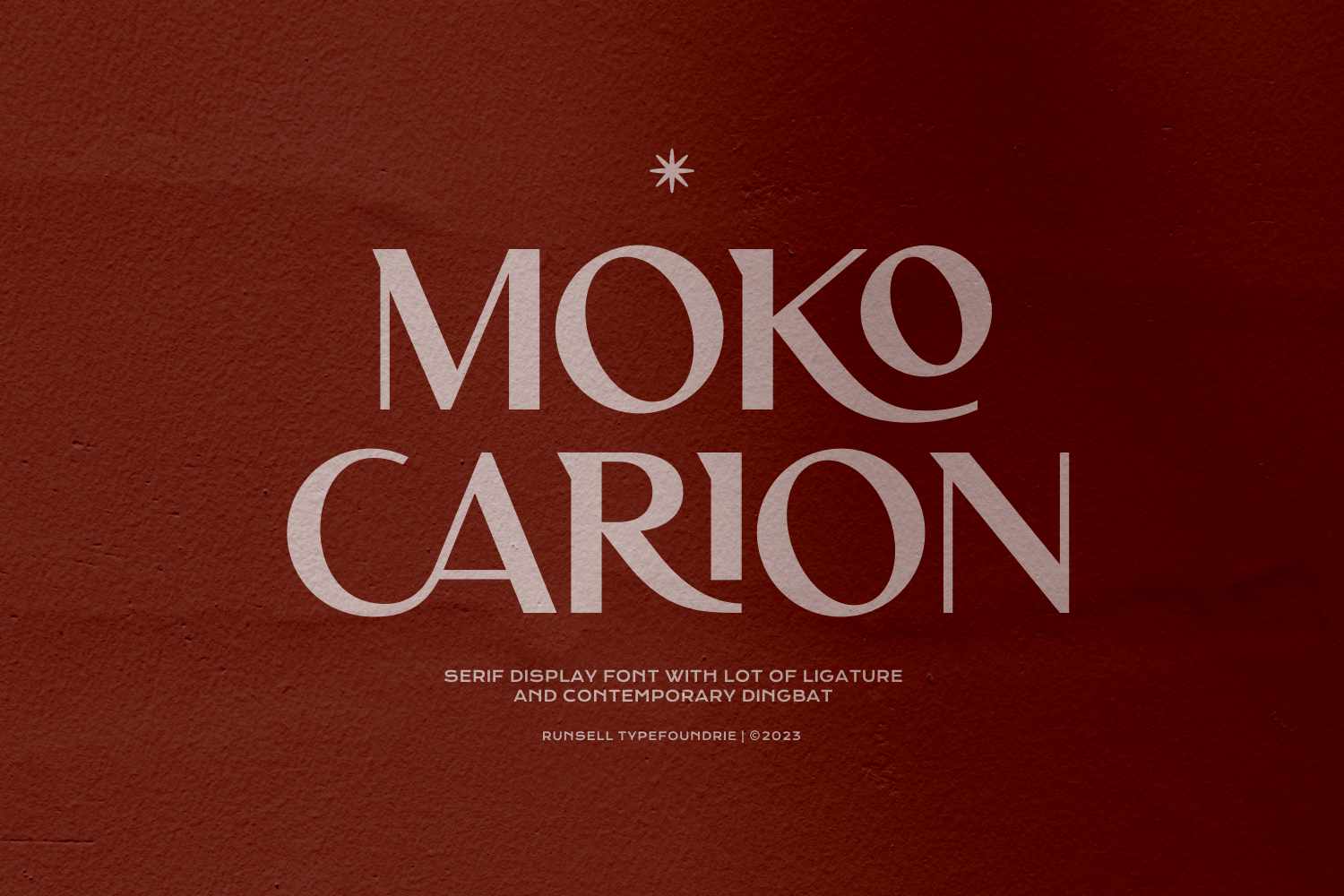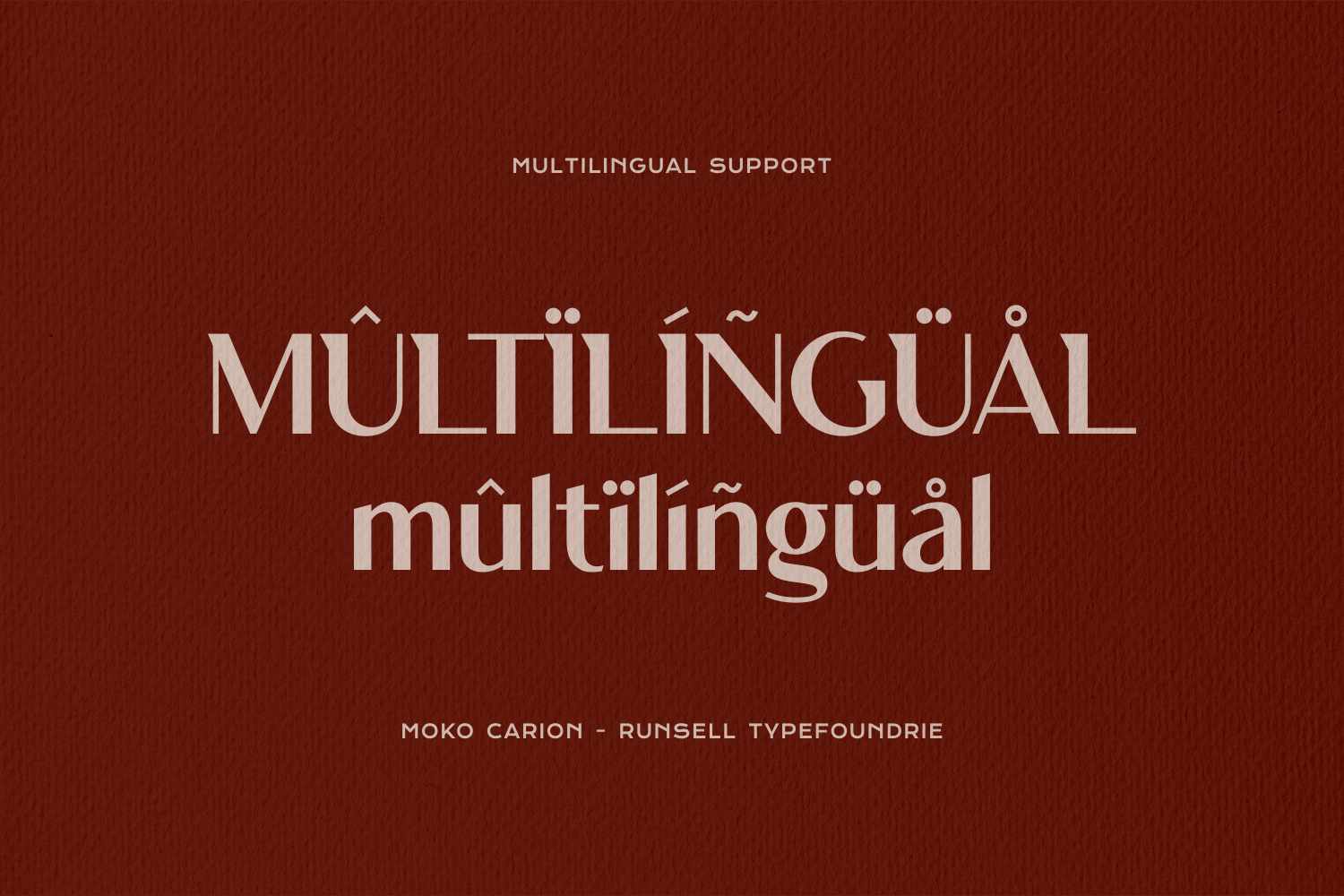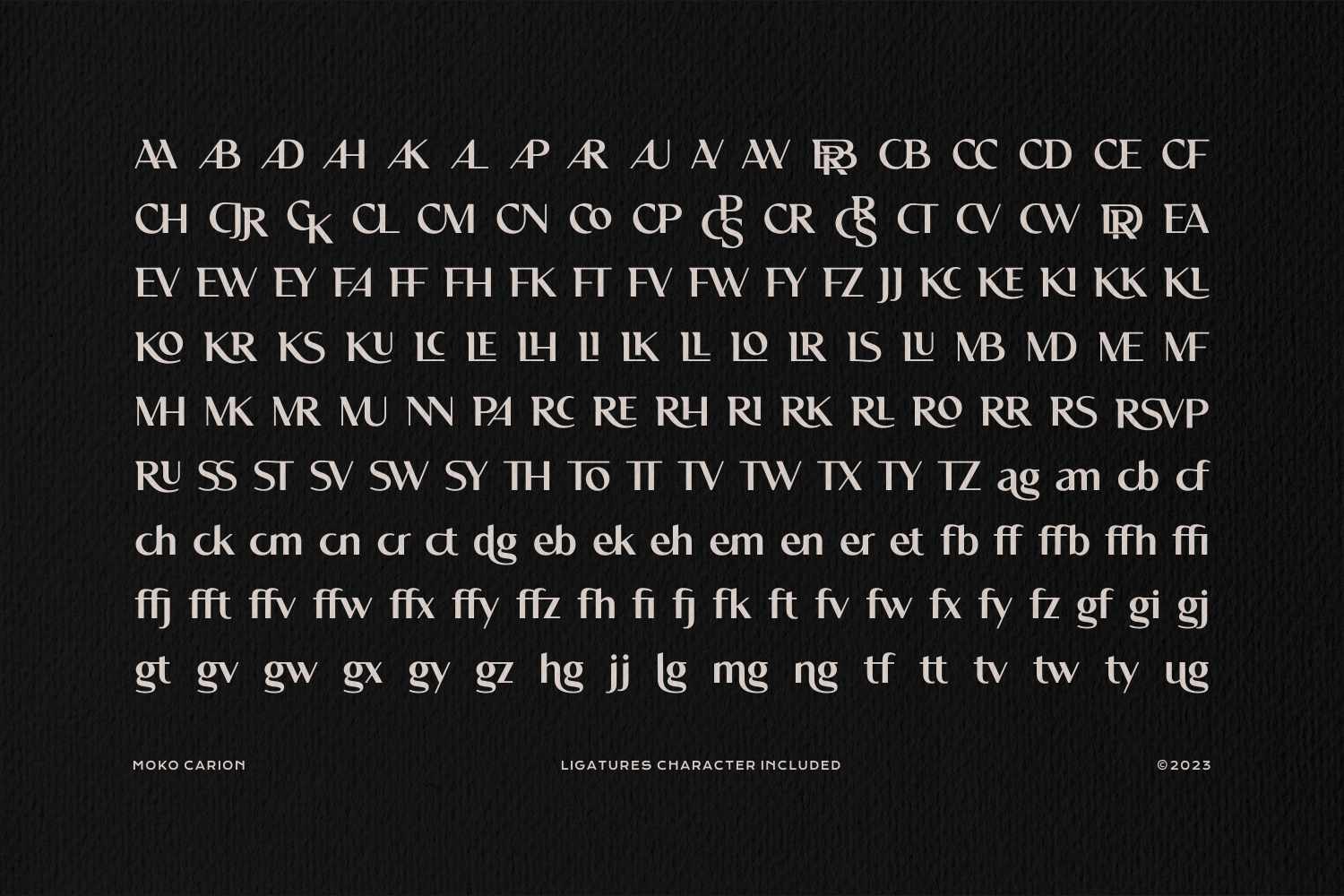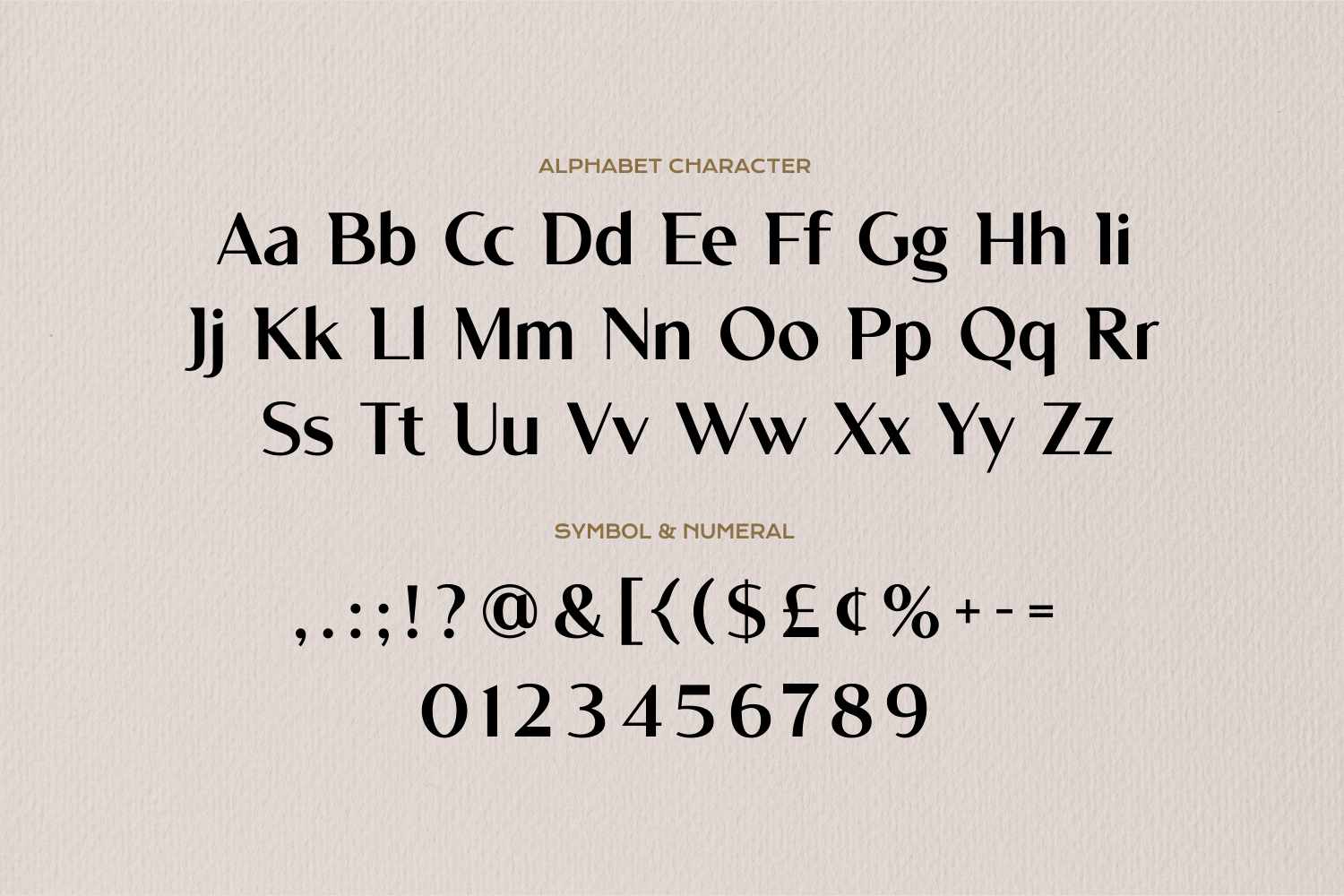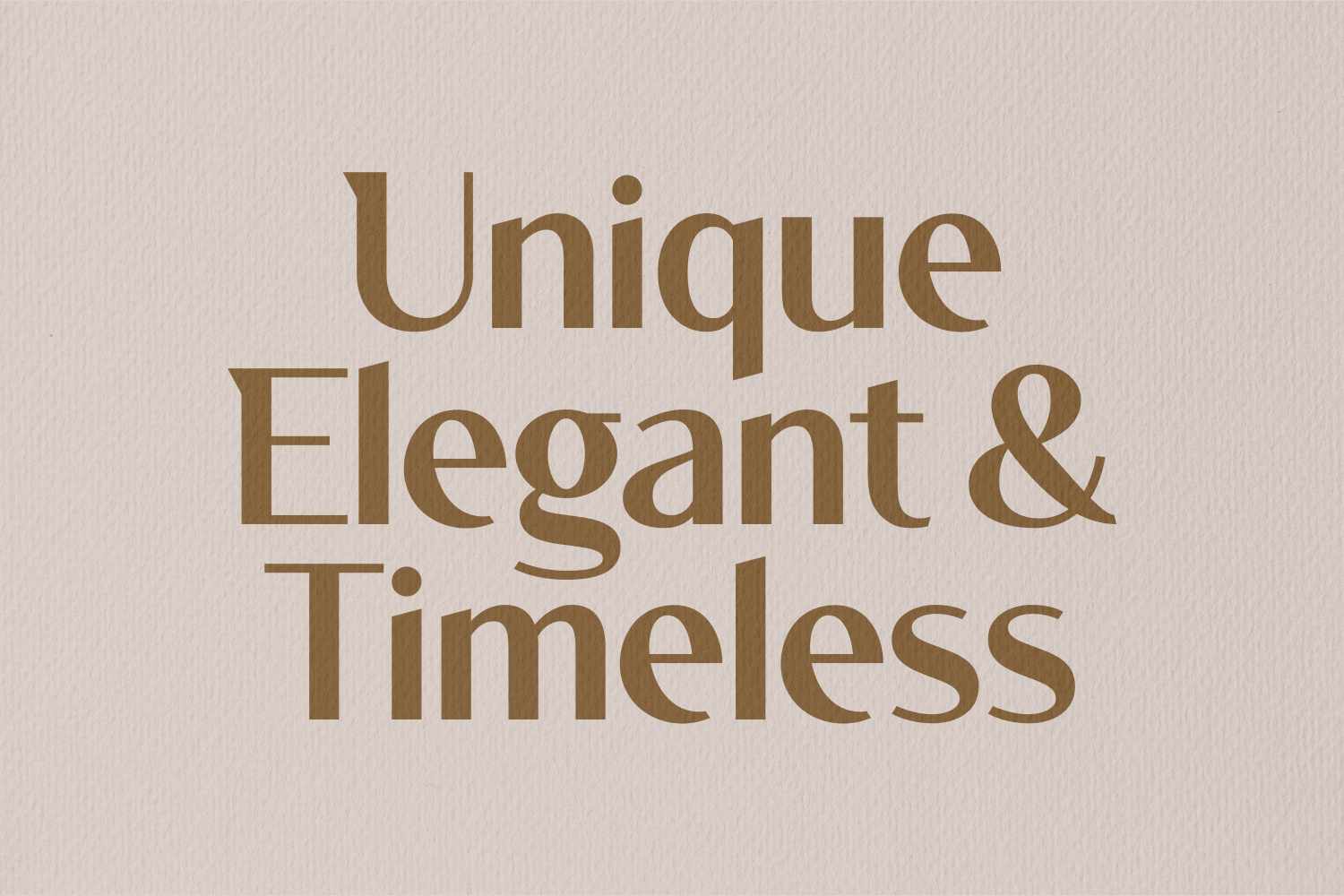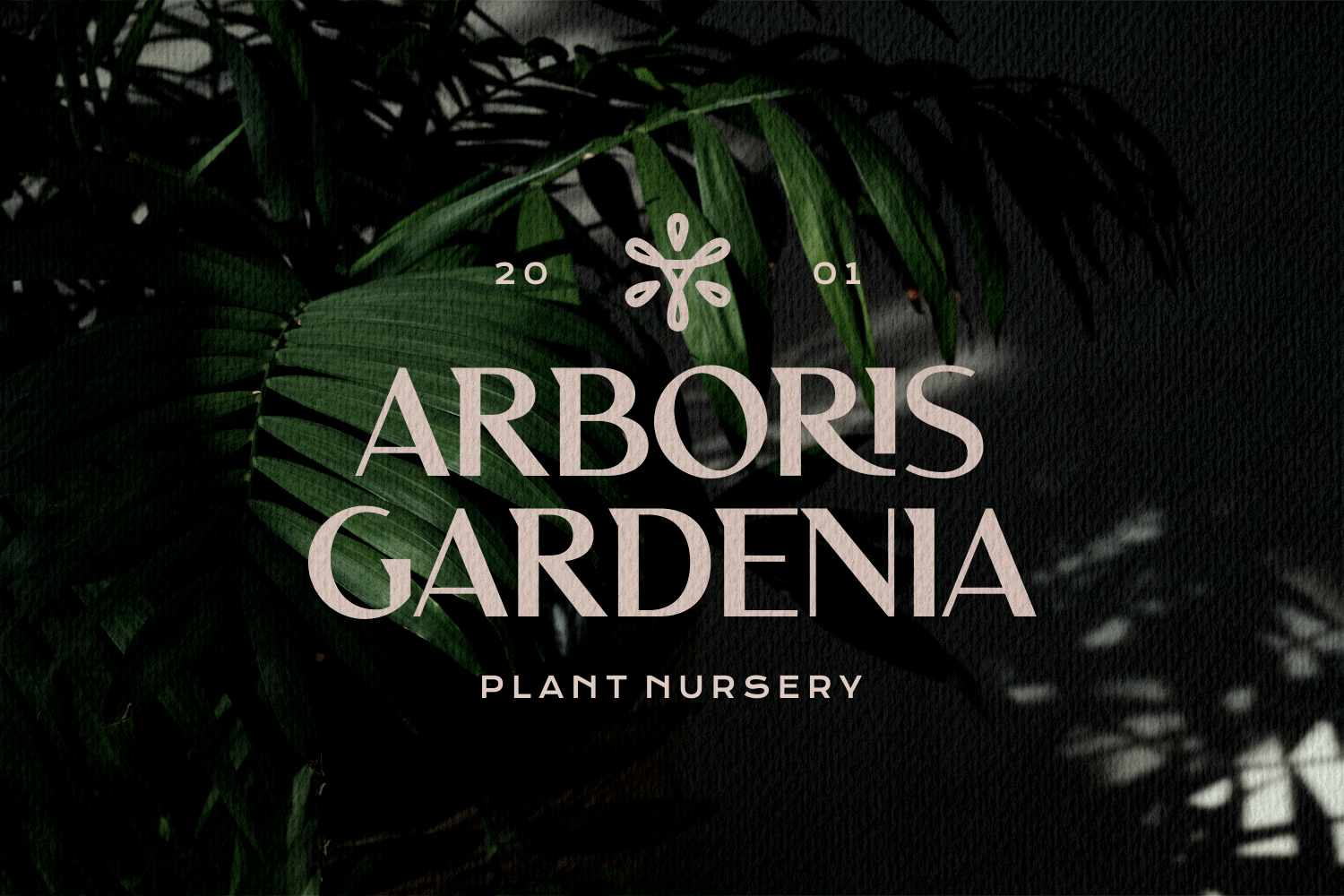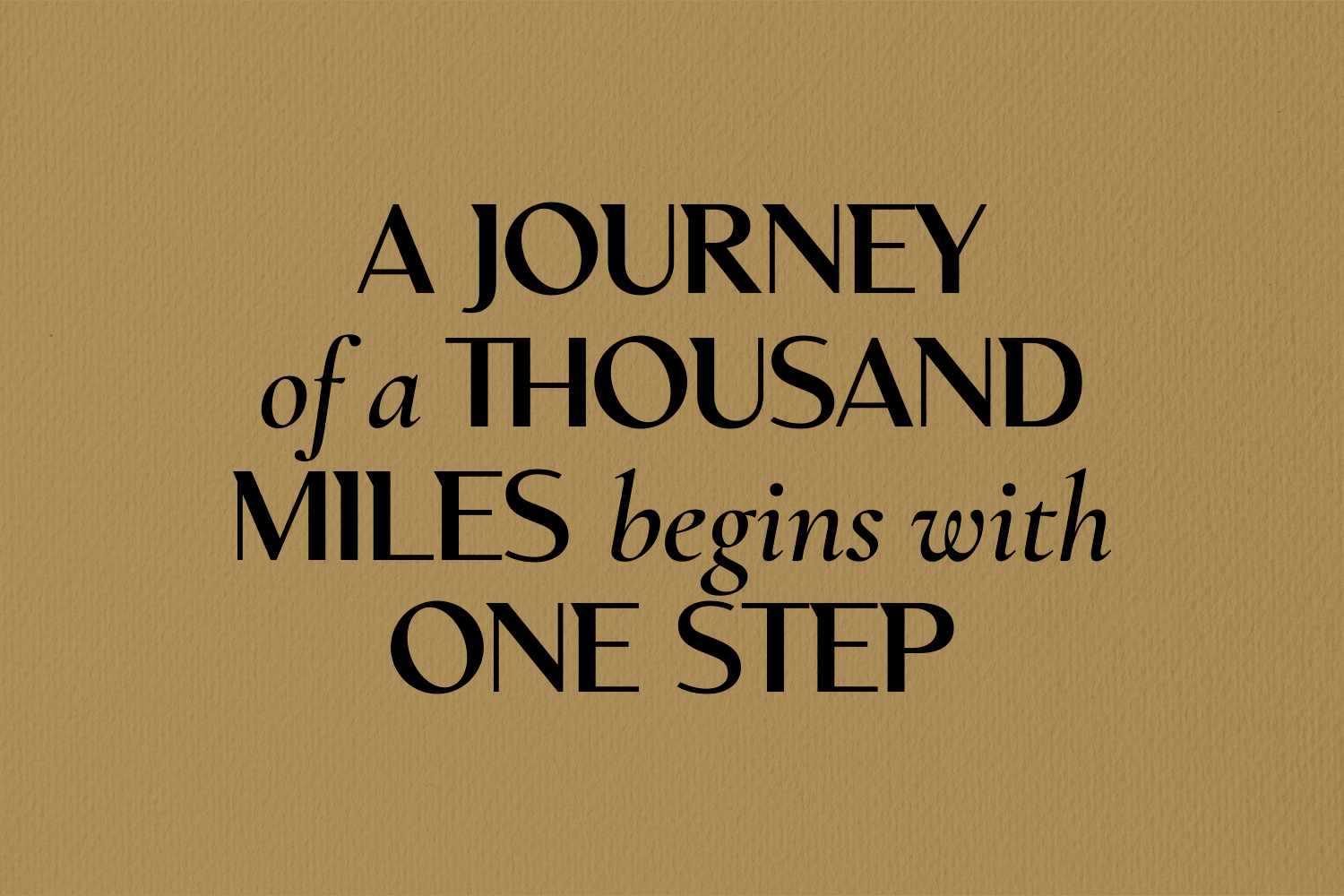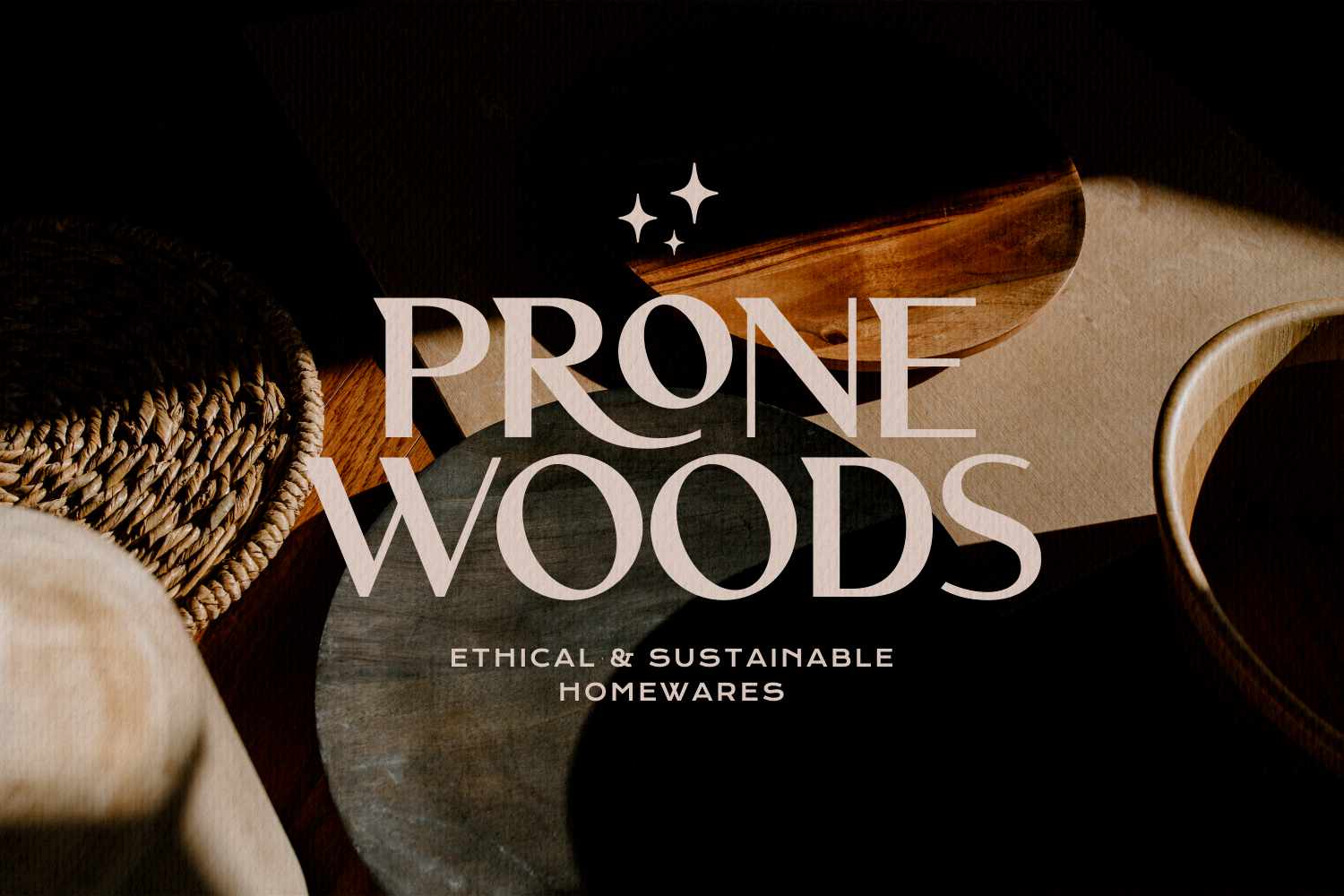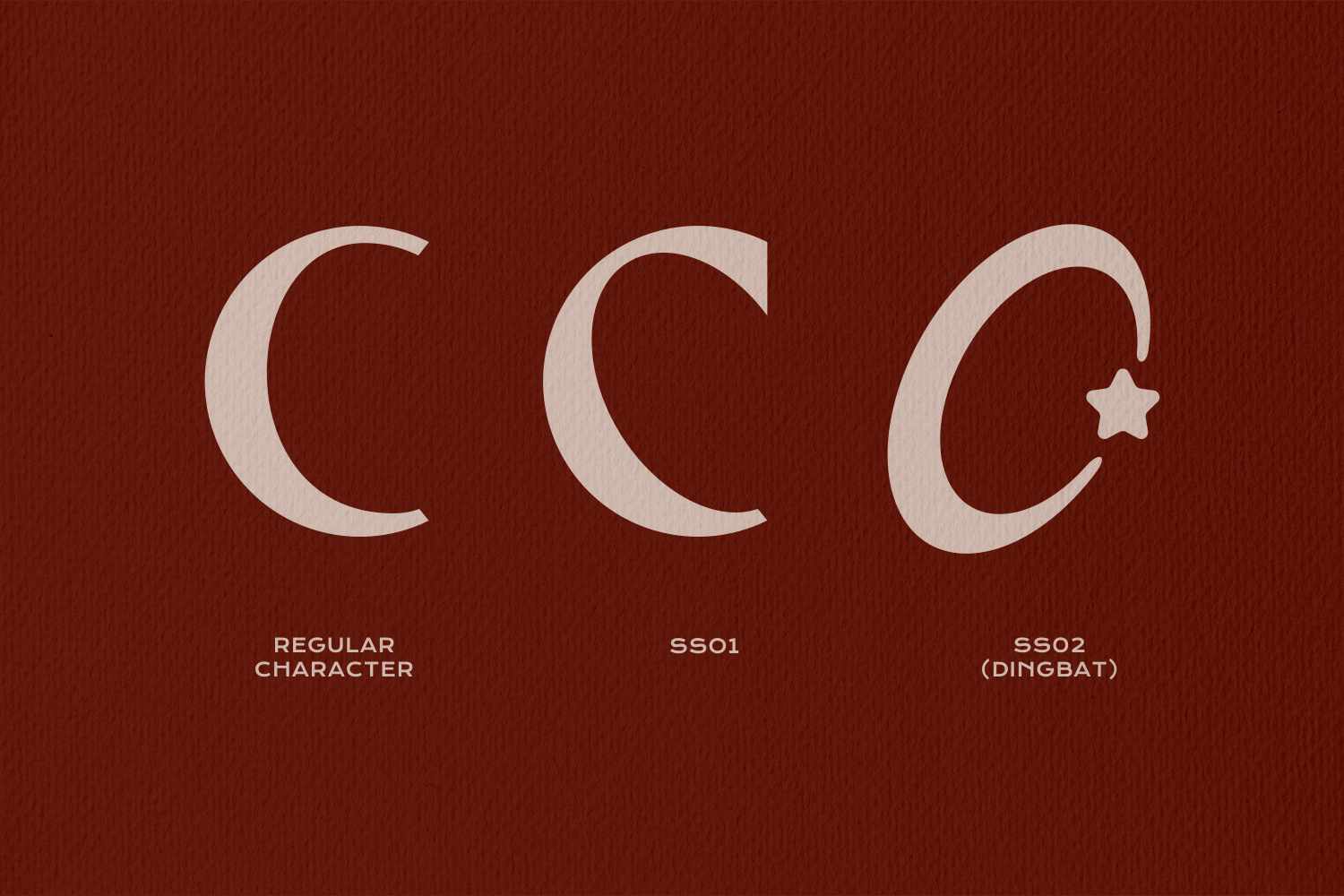
Moko Carion is a sophisticated serif display font that blends high-fashion aesthetics with timeless design. Characterized by sharp angles, elegant ligatures, and custom stylistic sets, this font is built to elevate your brand identity, editorial headlines, or packaging with a luxurious and artistic touch. It also comes with a collection of contemporary dingbats to enrich your compositions and add a distinctive visual language to your work.
Its versatility shines in upscale branding, artisan products, botanical logos, and cultural-themed visuals. With multilingual support, alternate glyphs, and refined proportions, Moko Carion gives designers the creative freedom to craft standout typography while keeping it sleek, modern, and expressive.